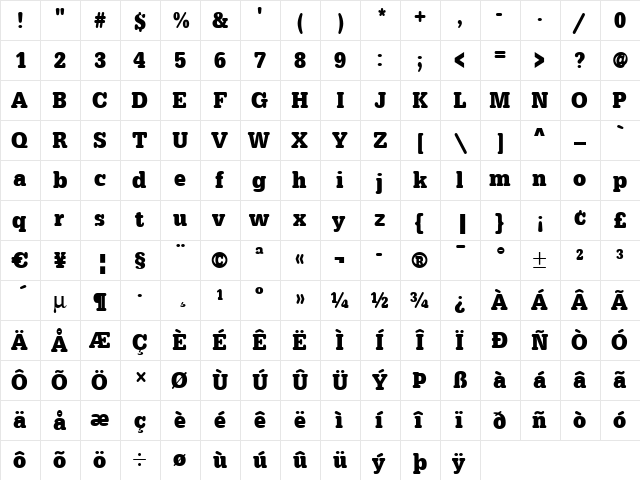
AstridBeckerNarrow Bold
Design Context for AstridBeckerNarrow Typeface
AstridBeckerNarrow offers clean, dependable letterforms without strong stylistic allegiance, making it a practical choice for designers who need flexibility. Its bold stroke weight gives it real presence on the page. Its narrow stance lets it pack a punch even in space-constrained designs.